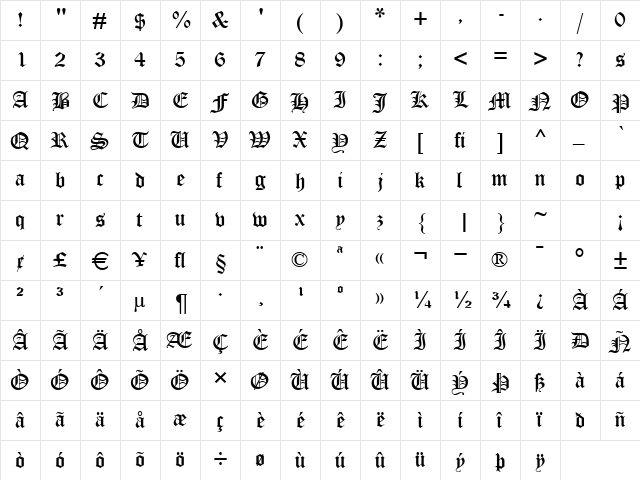
Ottoman Regular
Design Context for Ottoman Typeface
Ottoman takes a measured approach to typography — its balanced proportions and neutral character make it a reliable workhorse for both digital and print work.